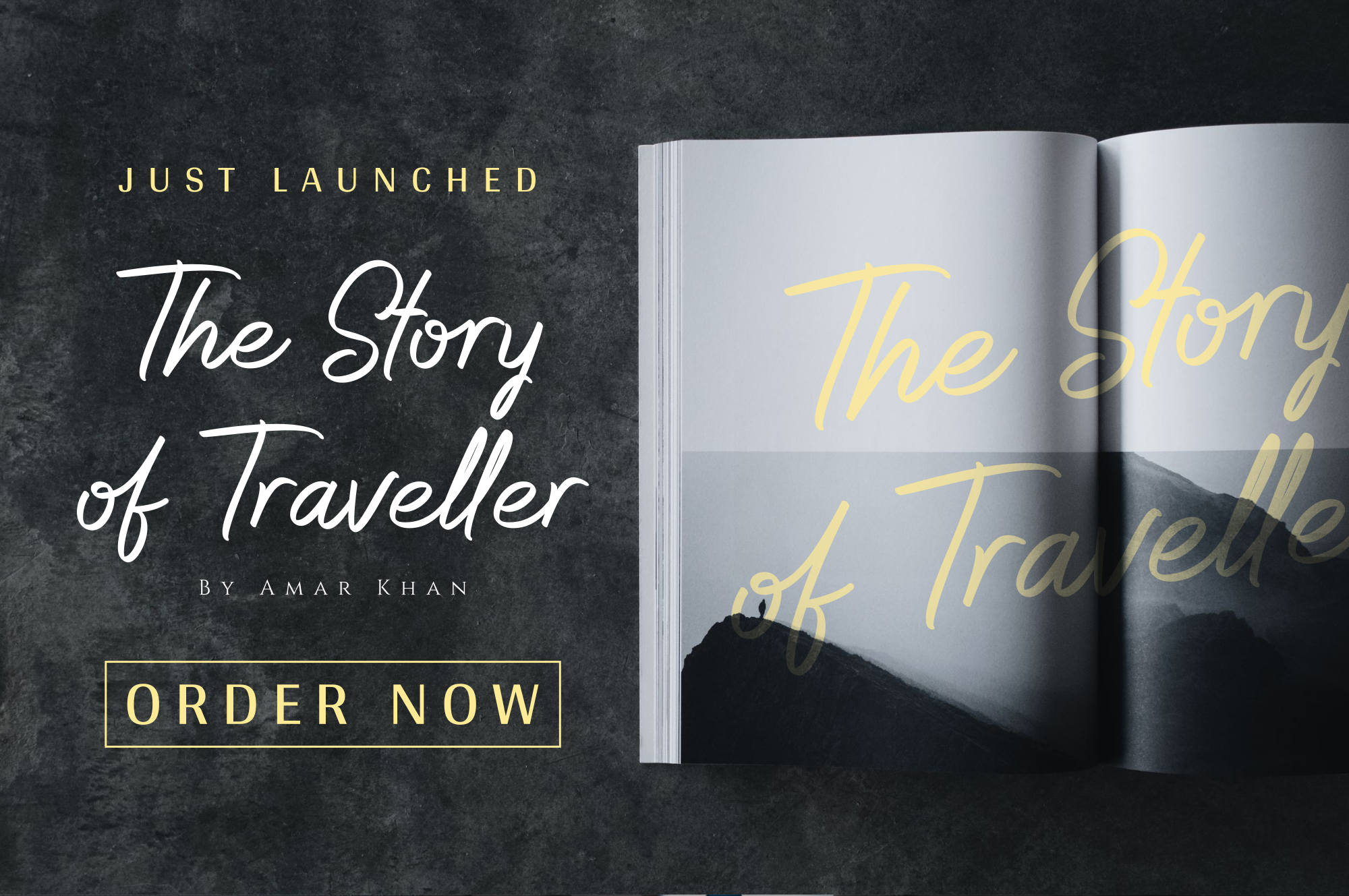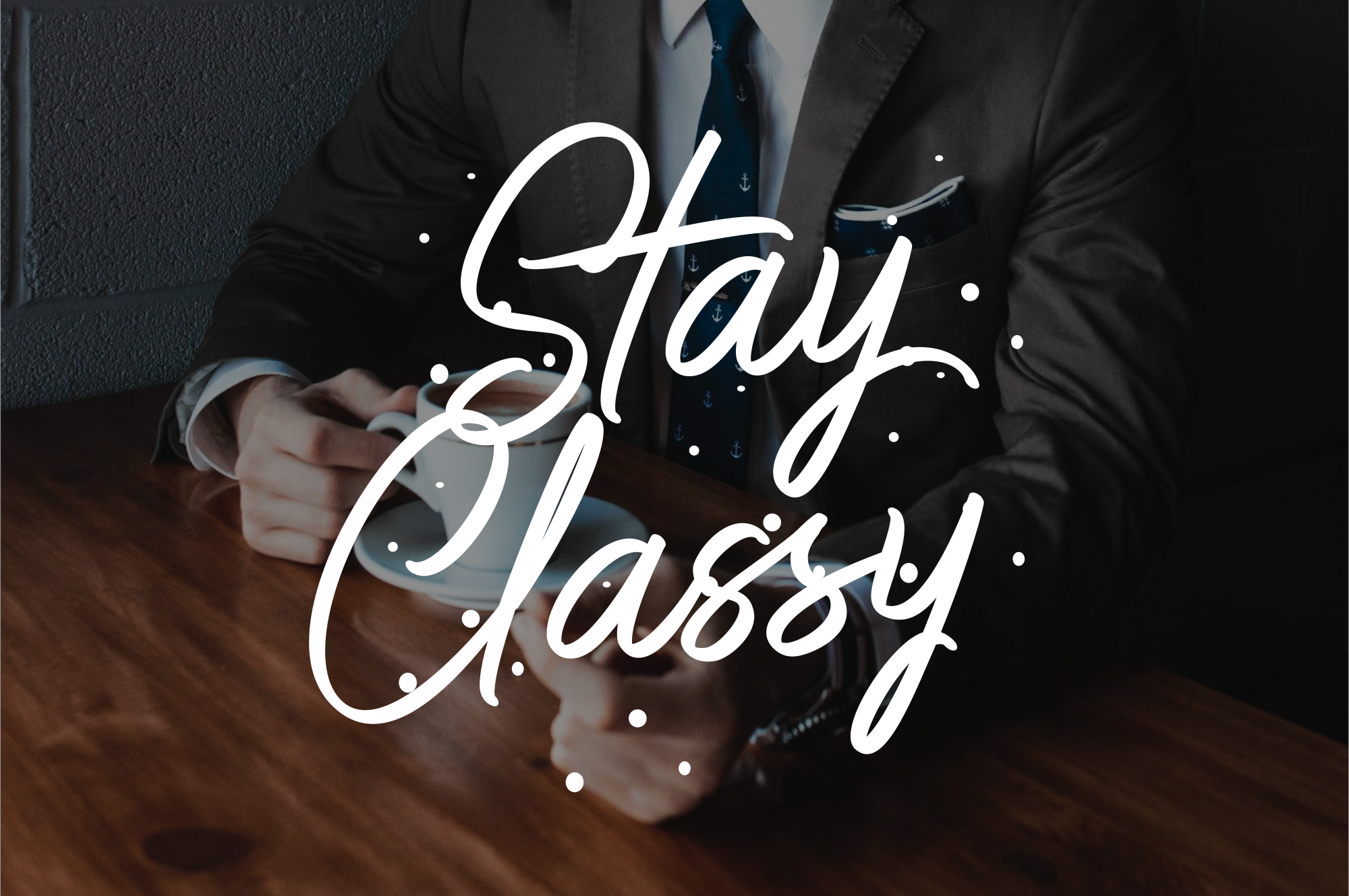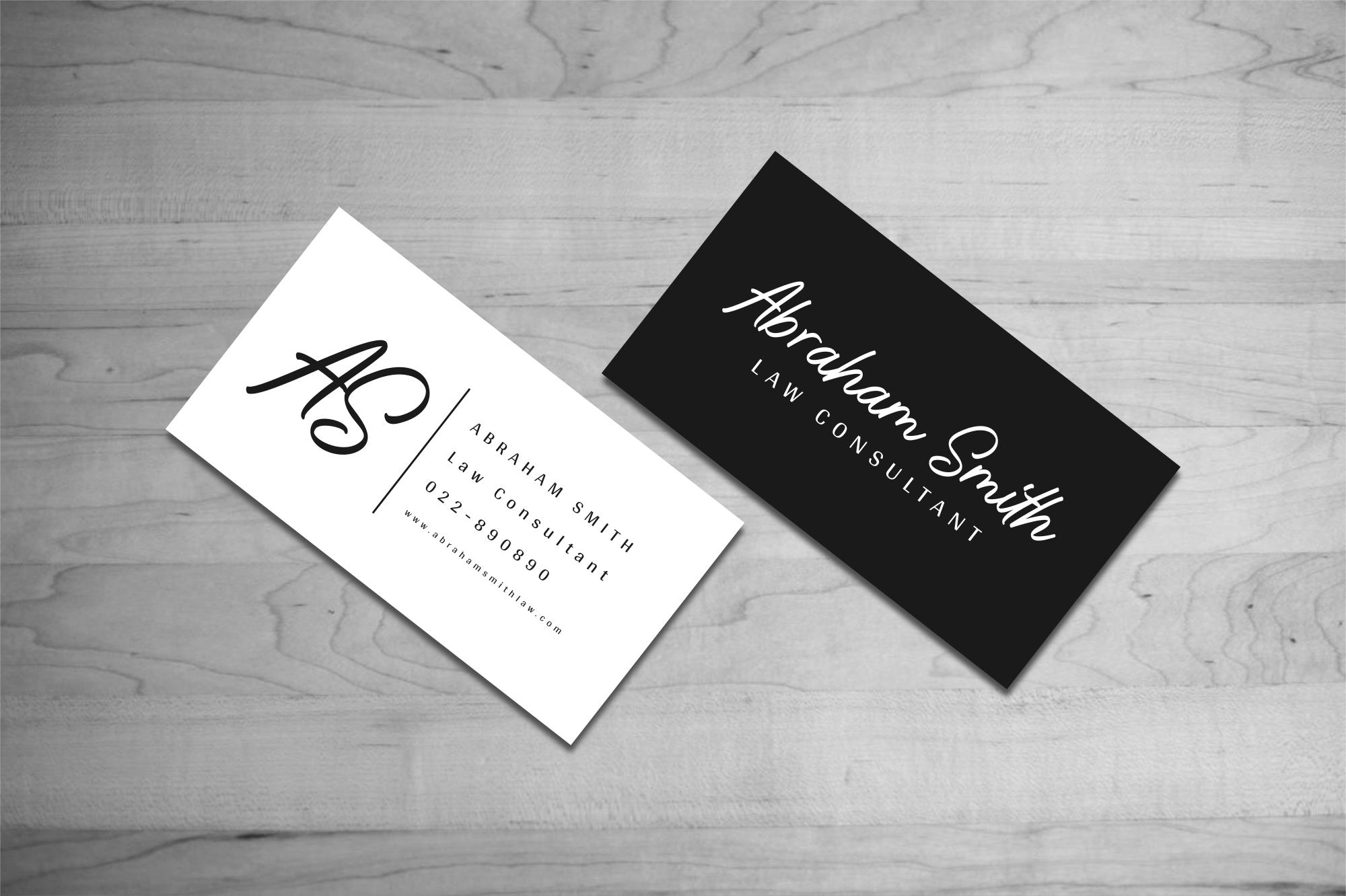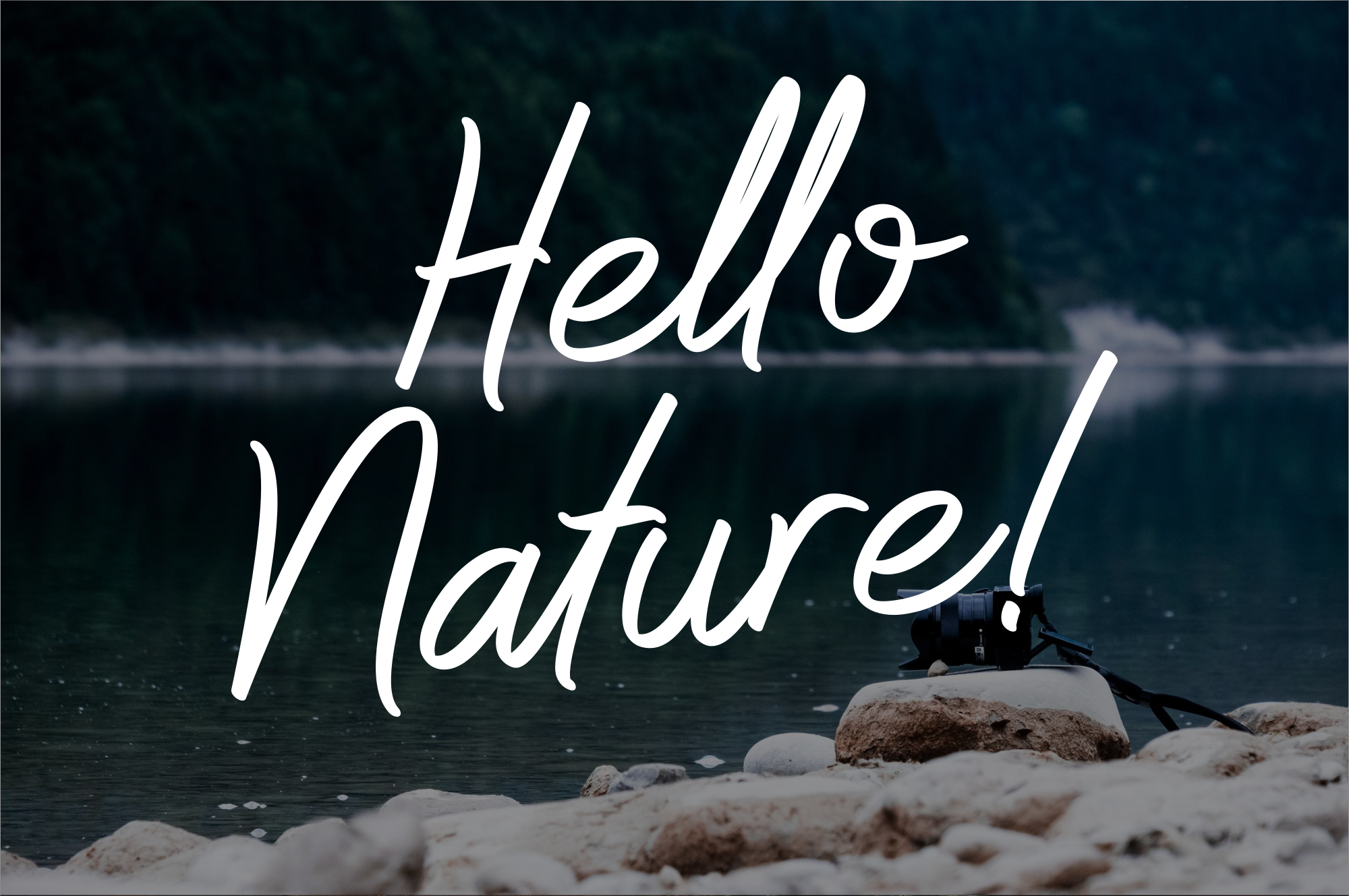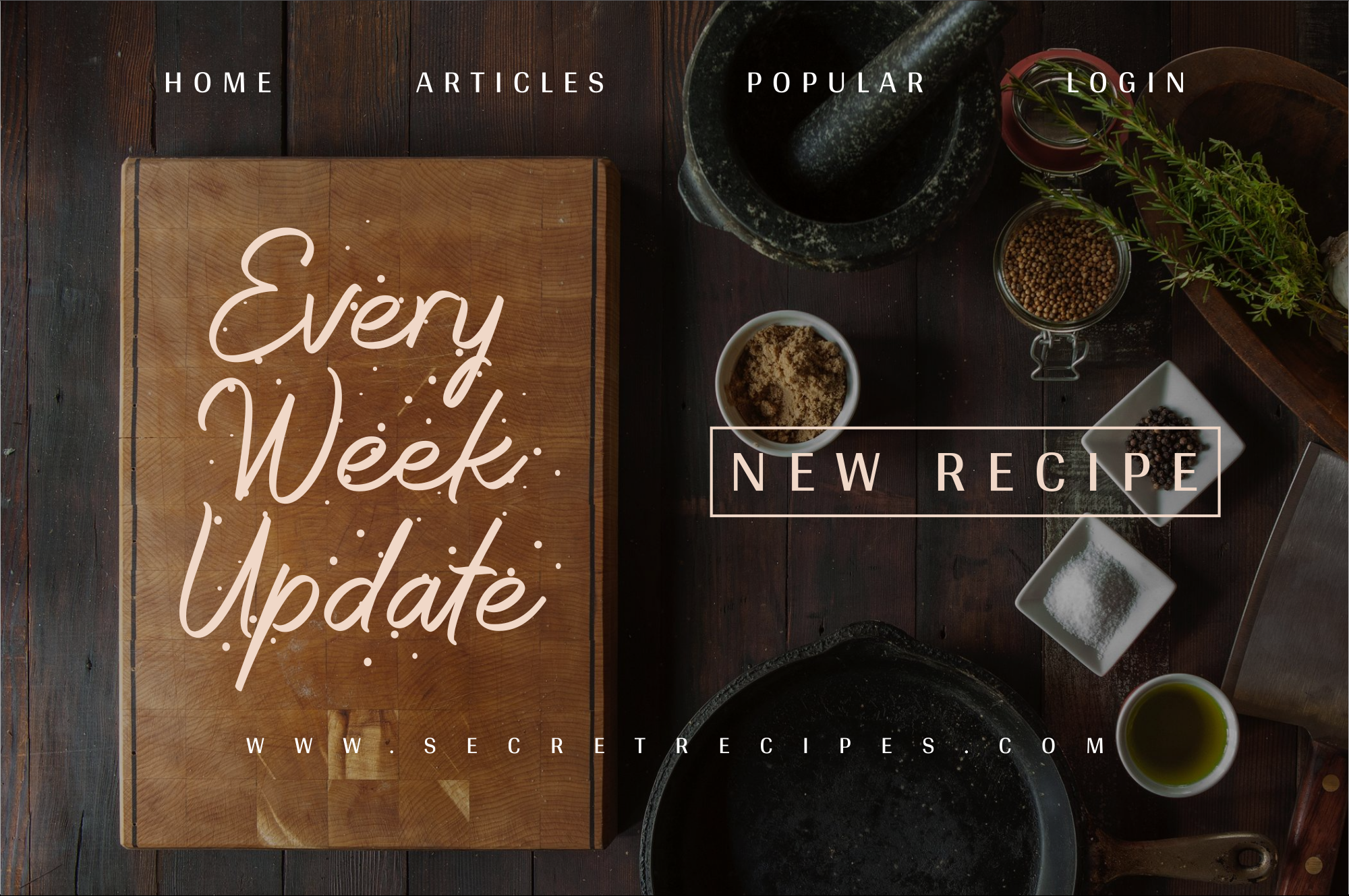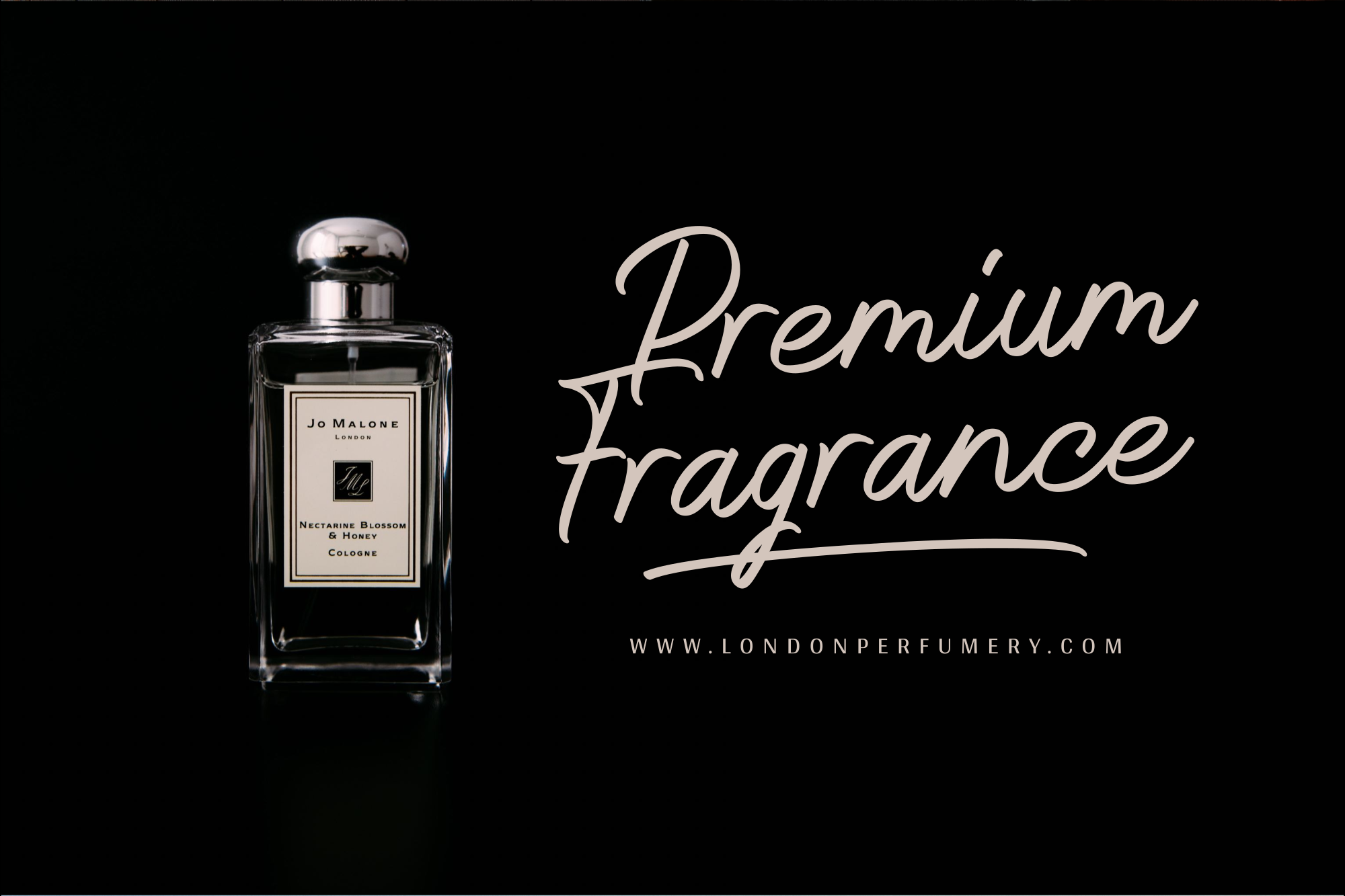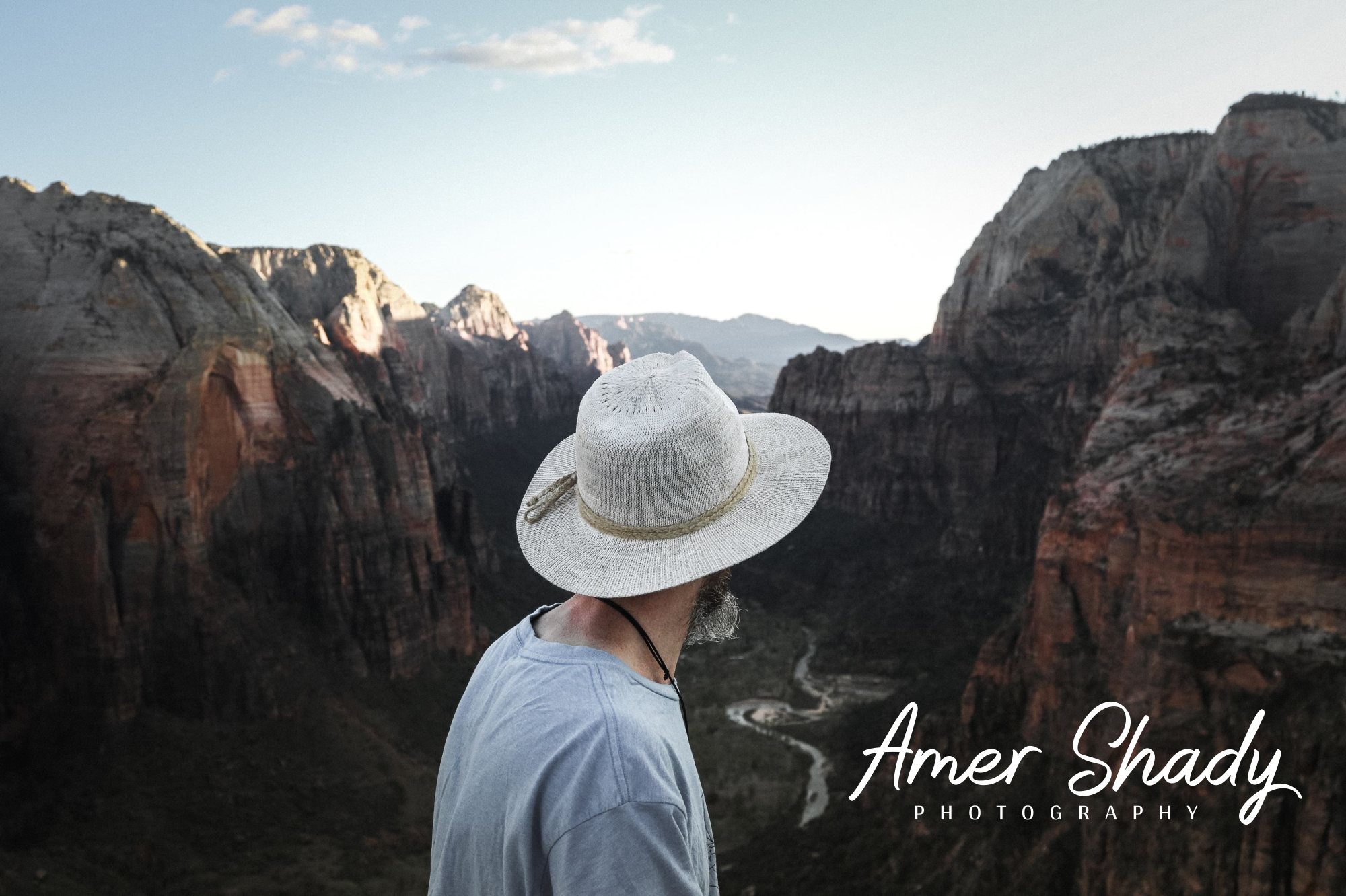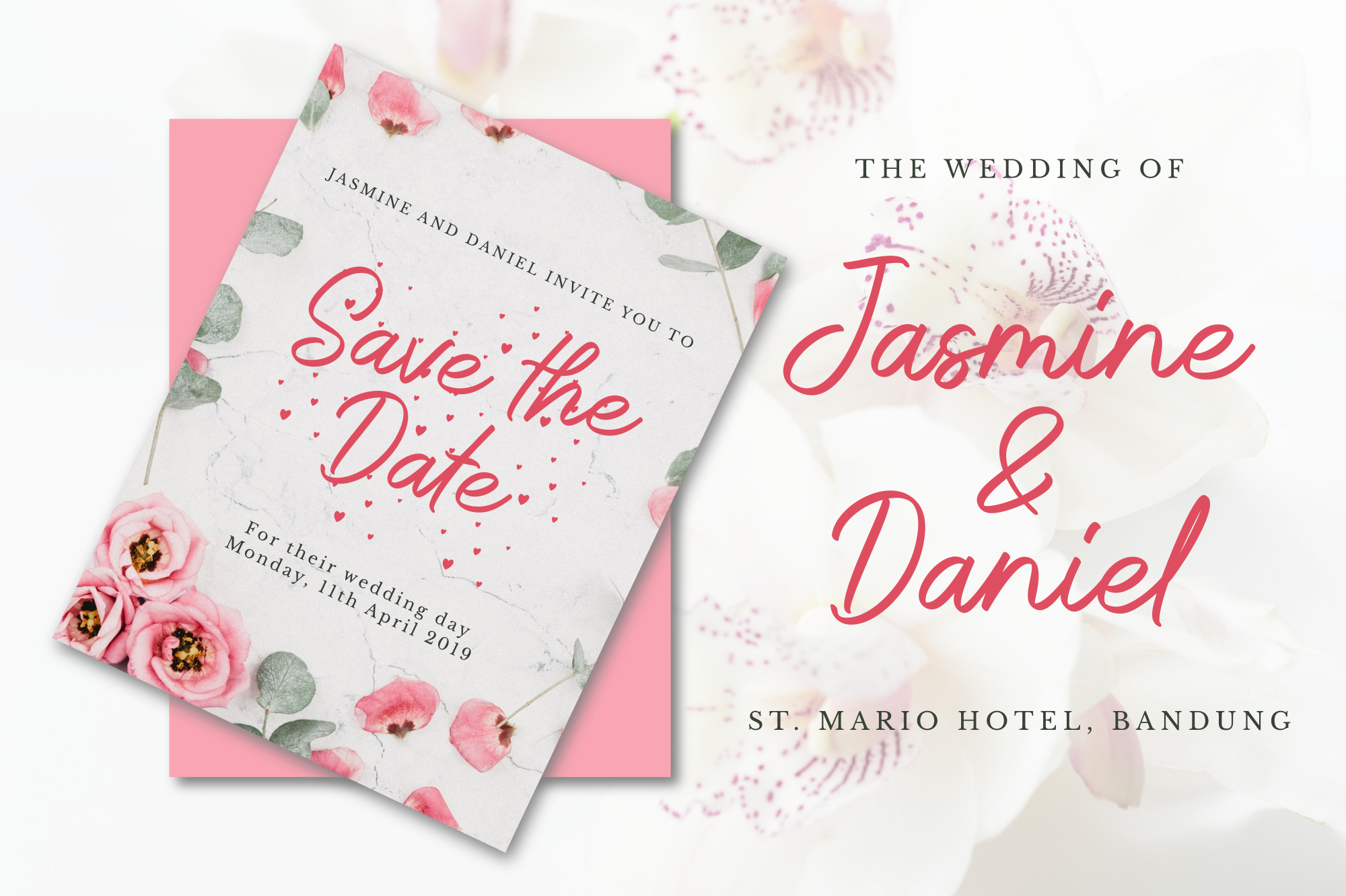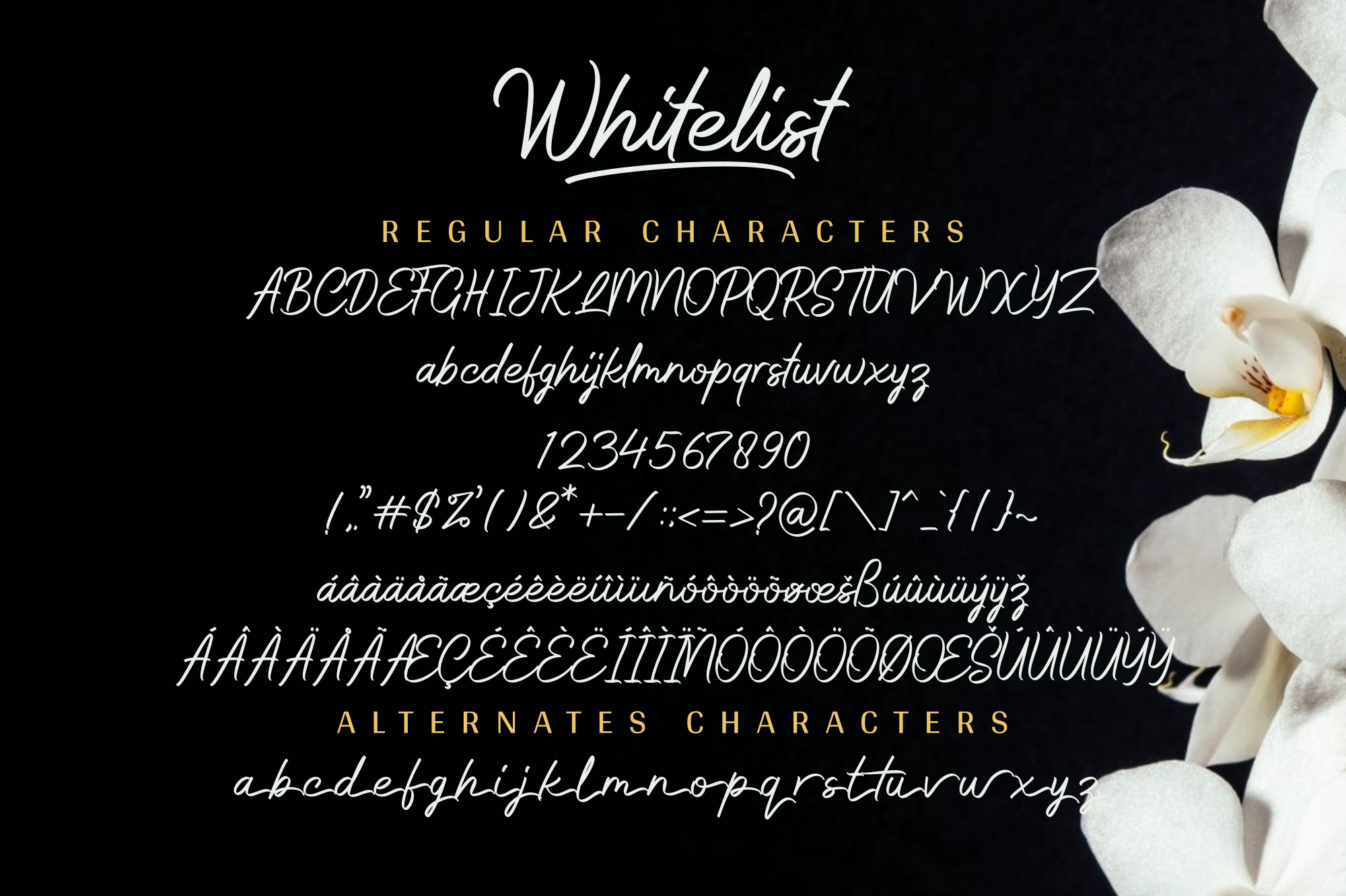
Whitelist - Stylish Marker Font
Whitelist is a stylish and elegant marker font that can turn simple text into a standout design. It has a fashionable handwritten look with strong personality.
- Styles
- Whitelist, Whitelist Swash
Whitelist is a stylish and elegant marker font that can turn simple text into a standout design. It has a fashionable handwritten look with strong personality. Use it for logos, branding, posters, packaging, labels, social media graphics, quotes, and more.
Logos, branding, posters, packaging, labels, social media graphics, quotes,